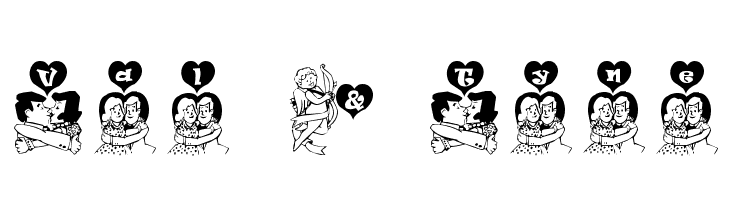
( Fonts by Iconian Fonts )
A bold, jagged font with a horror-inspired, chaotic design.
( Fonts by Misti`s Fonts - mistifonts.com - Personal-use only. For commercial use please contact owner. )
An elegant calligraphic font with intricate curves and artistic flourishes.
A bold, hand-drawn font with dynamic, irregular strokes and a playful yet aggressive style.
A bold, playful font with a 3D effect and rounded, irregular characters.
( Misti's Fonts - mistifonts.com/ )
An elegant, flowing script font with delicate, connected strokes.
( Fonts by Misti`s Fonts - mistifonts.com - Personal-use only. For commercial use please contact owner. )
A playful, whimsical script font with a handwritten style.
( Pixel Kitchen )
A bold, geometric font with sharp angles and a futuristic look.
( Fonts by Darrell Flood )
A bold, geometric font with sharp angles and a modern aesthetic.
( Fonts by Darrell Flood )
A bold, italic font with sharp angles and a dynamic style.
A bold, decorative font with vintage detailing and a Western-inspired style.
( Fonts are free for a personal use only - www.cuttyfruty.com )
An ornate and decorative script font with intricate loops and swirls.
( Fonts by Darrell Flood - Personal-use only. For commercial use please contact owner. )
A bold, angular font with sharp edges and a dramatic style.
( Fonts by Darrell Flood - Personal-use only. For commercial use please contact owner. )
A bold, italicized font with sharp, angular edges and a dynamic appearance.
( Fonts by Asep Rendi )
Bold, angular font with a gothic and modern flair.
( Fonts by Bangkit Tri Setiadi - Personal-use only. For commercial use please contact owner. )
A bold, gothic-style font with sharp edges and intricate curves, perfect for horror or fantasy themes.
( Misti's Fonts - mistifonts.com/ )
An elegant calligraphic font with ornate uppercase and smooth lowercase letters.